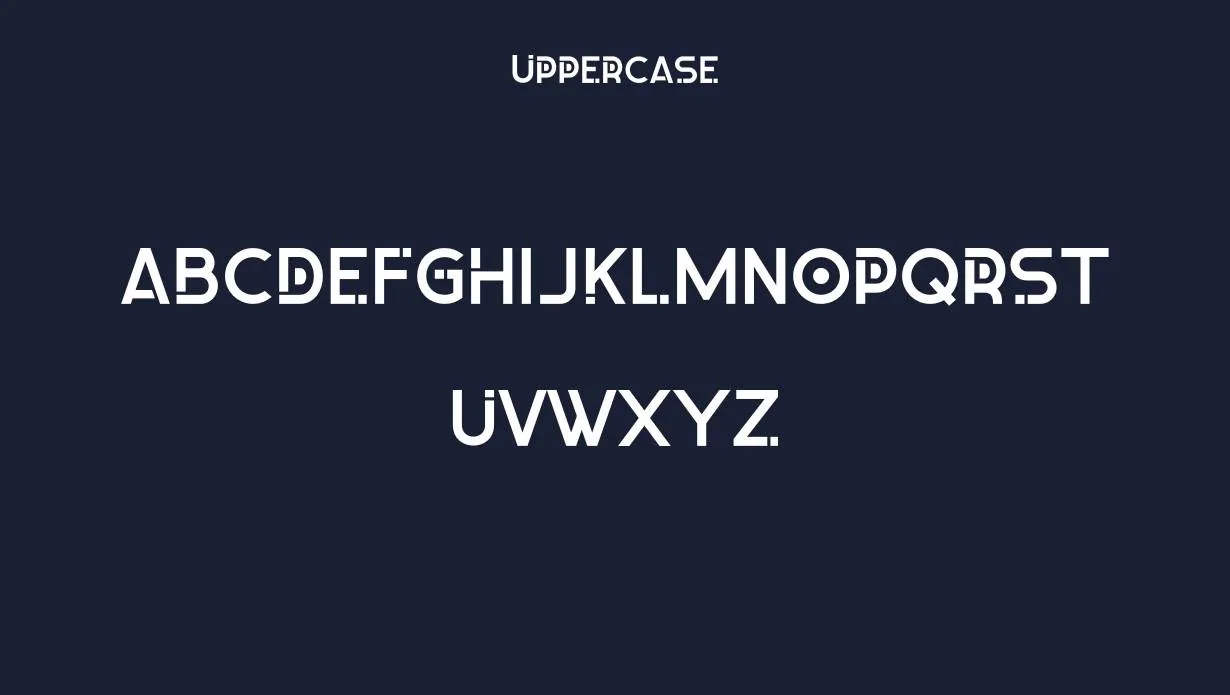
Zexo Font is a charming and elegant Sans-Serif font that brings a gorgeous and trendy touch to any content and was created by Khurasan in 2019. Its online generator tool is a great option for making stylish text designs without downloading it onto your PC, just copy the text and paste it.
It also originates in 87 glyphs and 91 unique characters including large and small letters, numbers, etc.